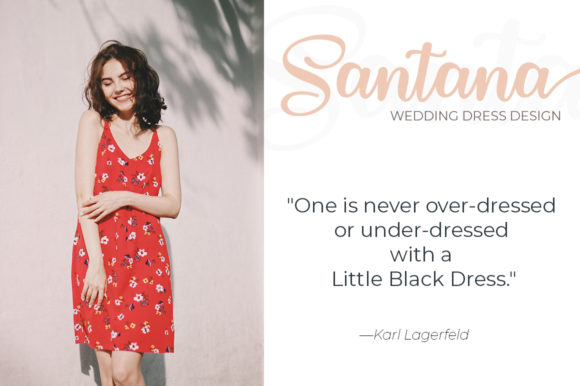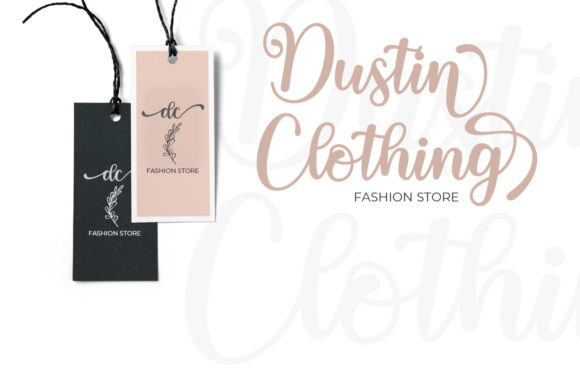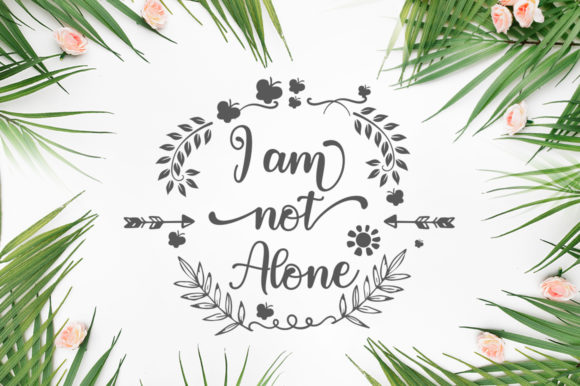
Introduction to History Jasmin Font
There’s something magical about discovering a new font that perfectly captures the essence of your creative vision. For designers, it’s a moment of pure joy – the perfect combination of style and substance. And that’s exactly what the History Jasmin Font offers. With its delicate, elegant, and flowing handwritten style, this font is a game-changer for any creative project.
Whether you’re working on a high-quality design project or simply need a unique touch for your personal blog, the History Jasmin Font is an invaluable resource. Its beautiful and well-balanced characters make it a versatile choice for a wide range of designs, from elegant invitations to modern web pages. And the best part? It’s available for free download, making it a must-have for any designer looking to elevate their work.
With its stunning alternates, gorgeous glyphs, and smooth lines, the History Jasmin Font is a treasure trove of creative possibilities. Add it to your design arsenal and watch your ideas come alive on a transparent background, taking your project to new heights.
Key Features of History Jasmin Font
- High-quality, elegant script font with a touch of vintage charm, perfect for creative projects.
- Designed to be used for a wide range of creative projects, including invitations, quotes, and other design elements.
- Includes 100 glyphs and supports Latin and Cyrillic languages, making it a versatile font for various languages and scripts.
Honest Review: History Jasmin Font
I recently had the opportunity to work with the History Jasmin Font, and I must say it’s been a pleasant experience. The font offers a free download option, which is a great resource for designers working on creative projects.
One of the standout features of this font is its high quality. The characters are well-designed, and the transparent background makes it easy to overlay on images or other design elements. ✨
Here are some of the key benefits of using the History Jasmin Font:
- Highly customizable, making it perfect for creative projects
- The font may not be suitable for large blocks of text due to its ornate design
- ⚠️ May require additional styling to achieve desired look and feel
Overall, I’m impressed with the History Jasmin Font. While it may have some limitations, it’s a great design resource for creative projects. With a little extra effort, it can add a touch of elegance to any design.
Using in Creative Projects
The History Jasmin Font is suitable for a wide range of creative projects, including:
- Designing posters and flyers for events or promotions
- Creating social media graphics and advertisements
- Developing branding materials, such as business cards and logos
- Designing educational materials, such as infographics and presentations